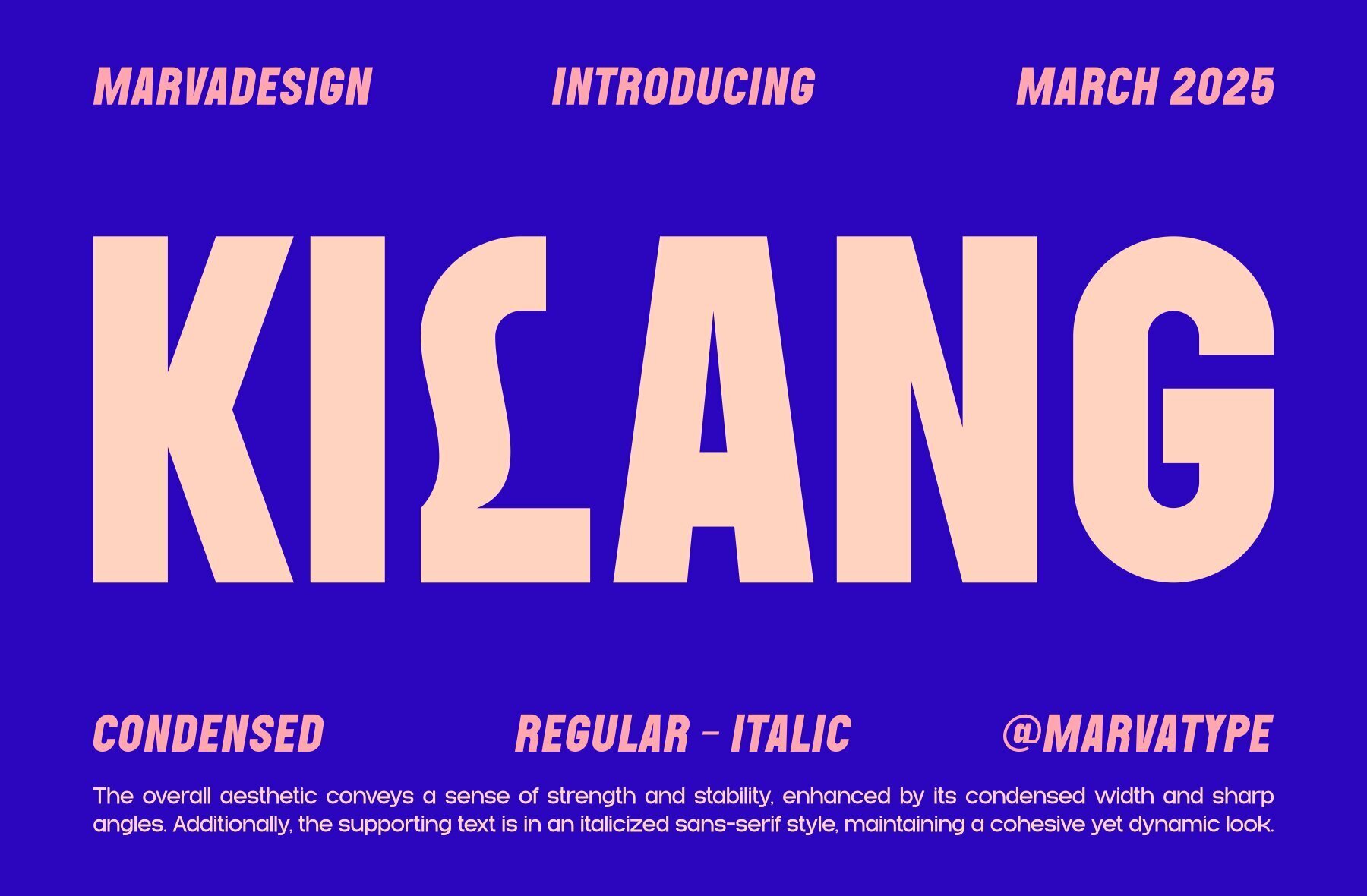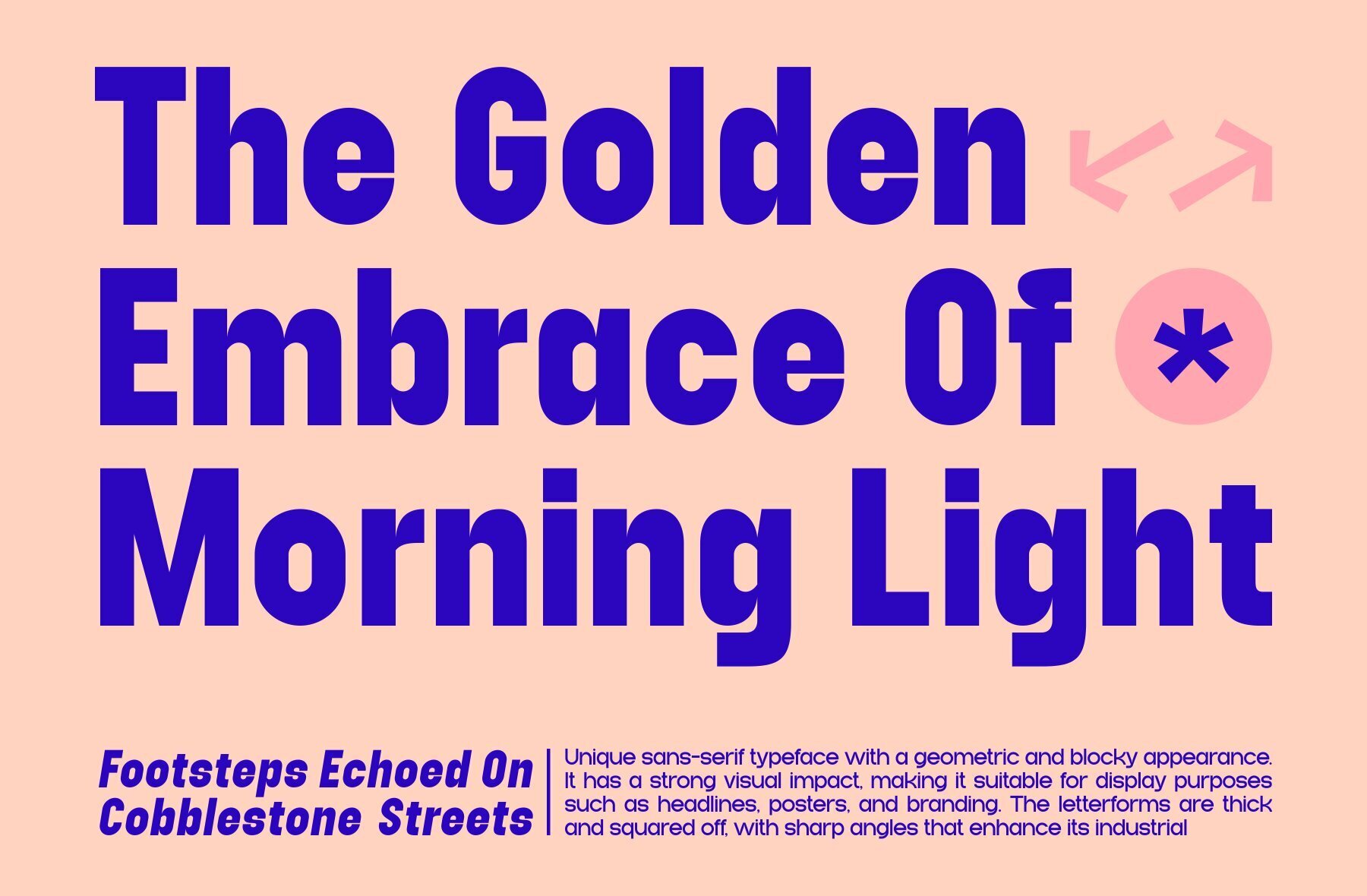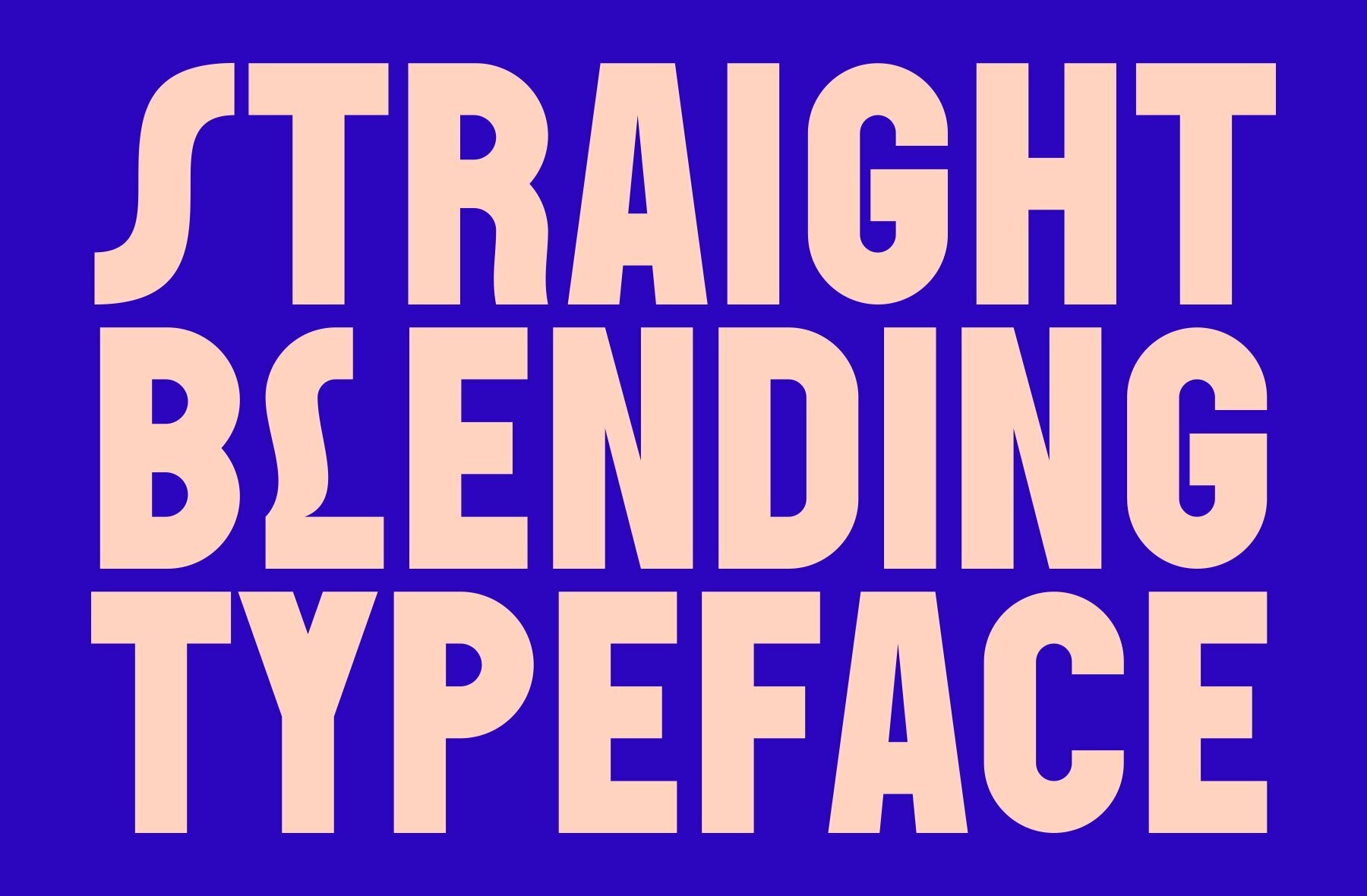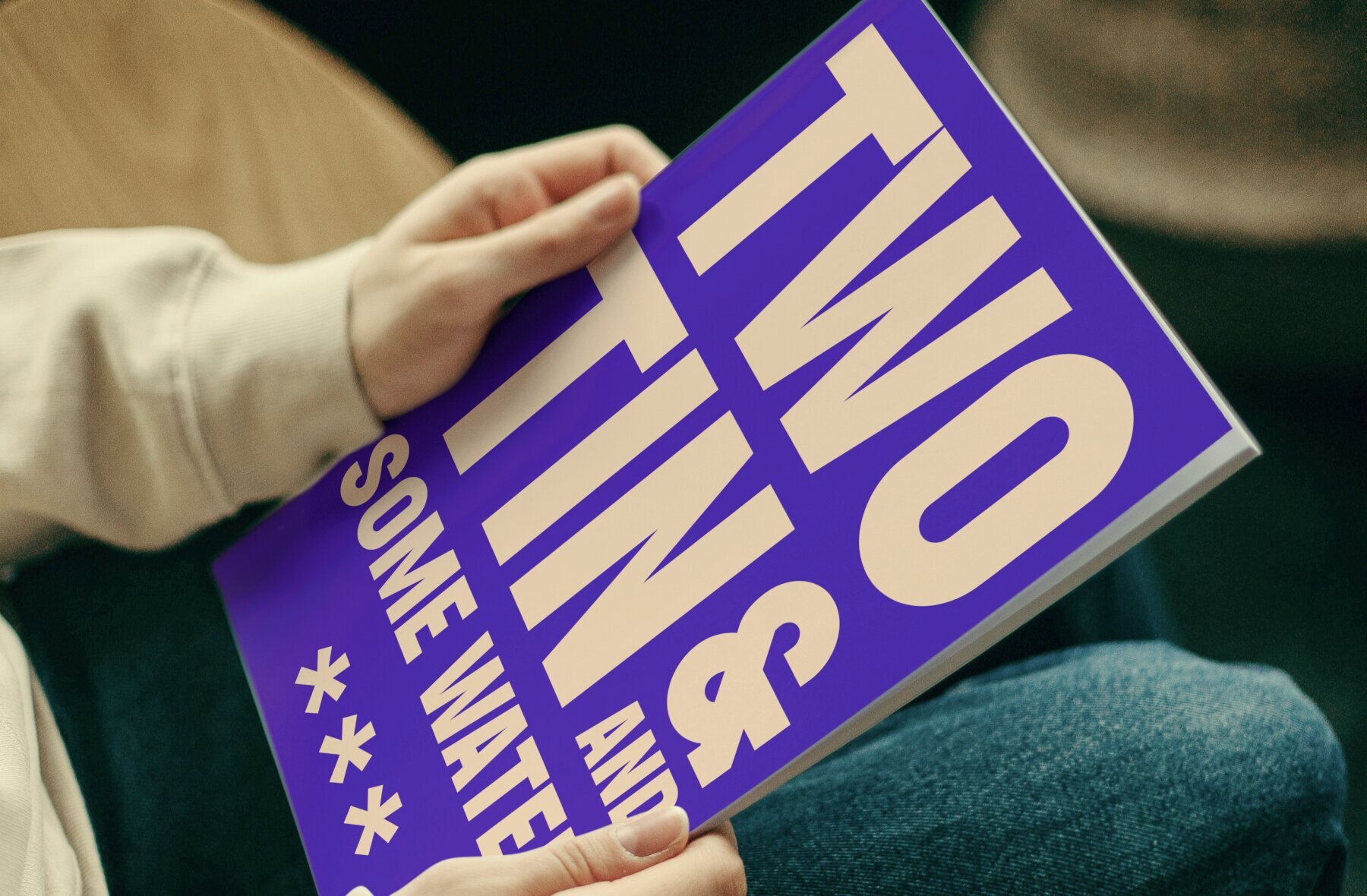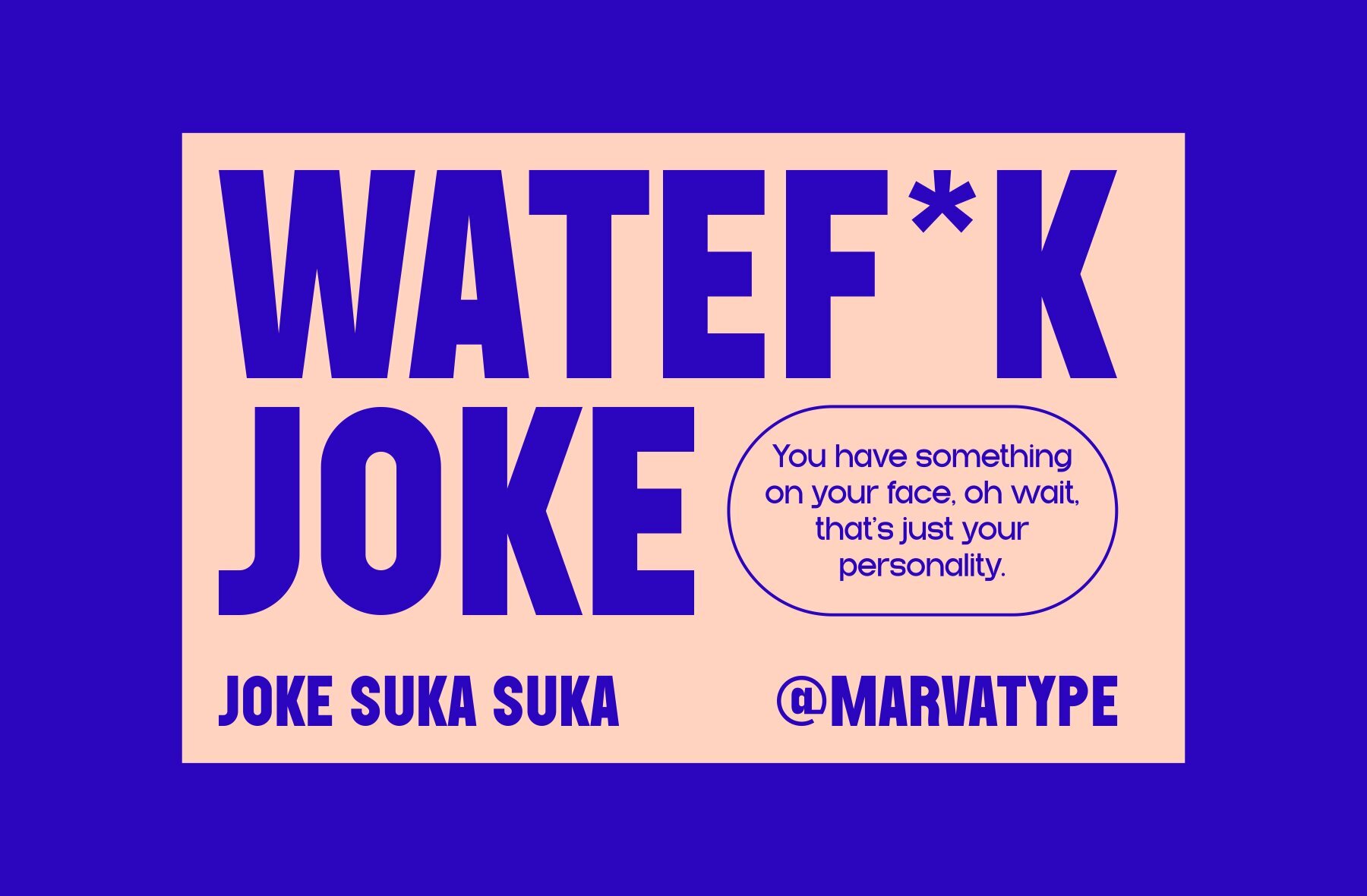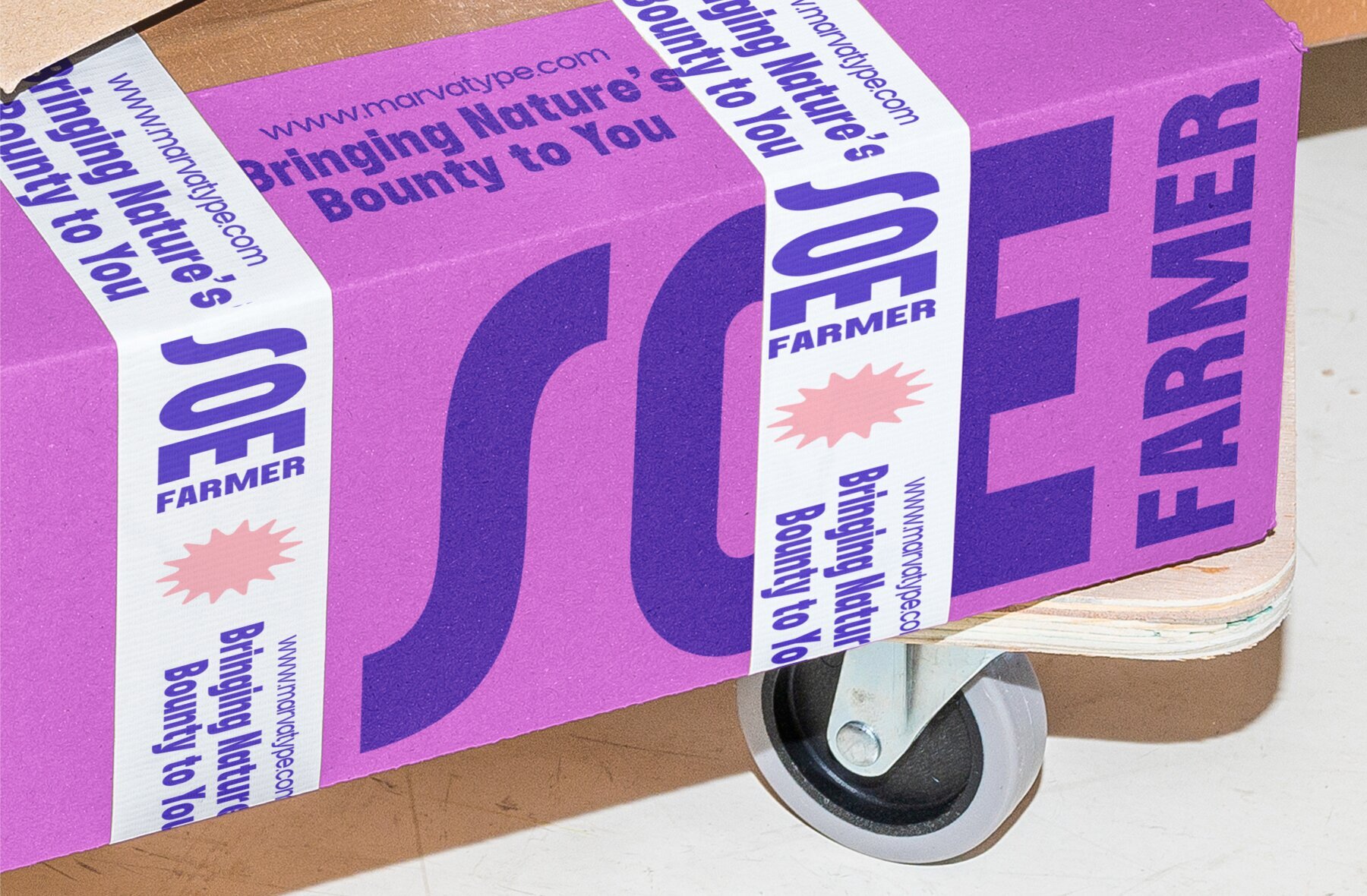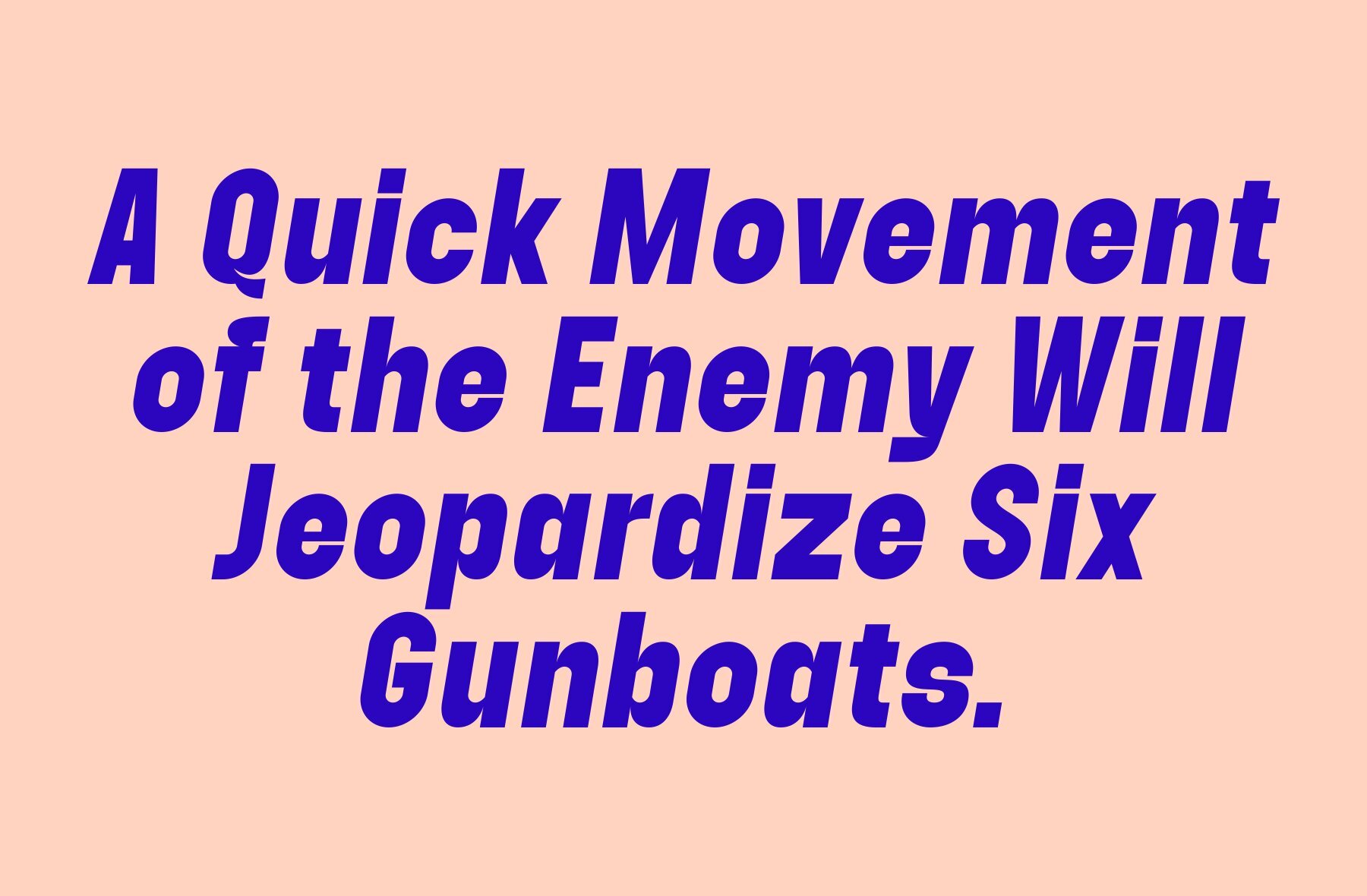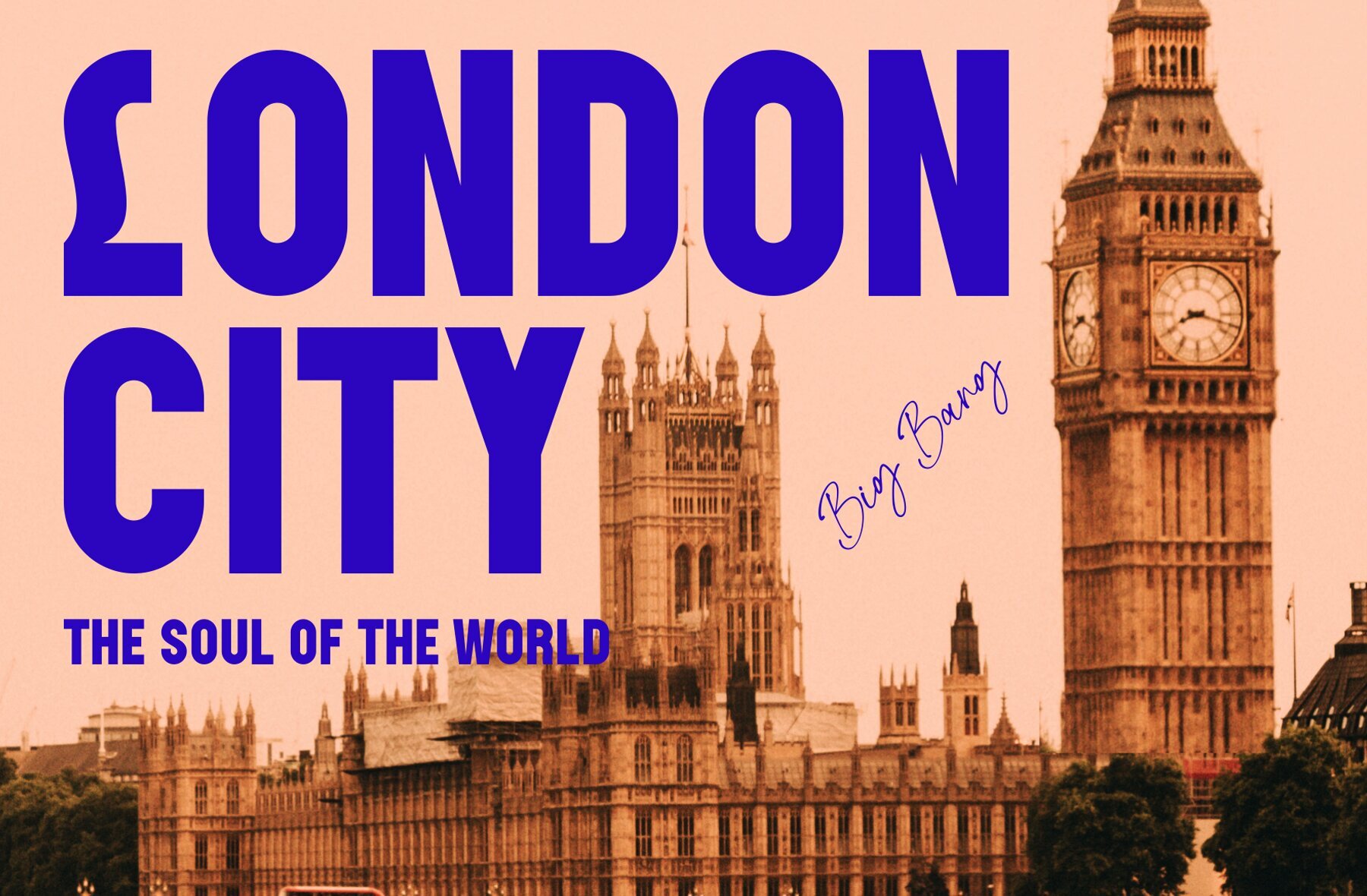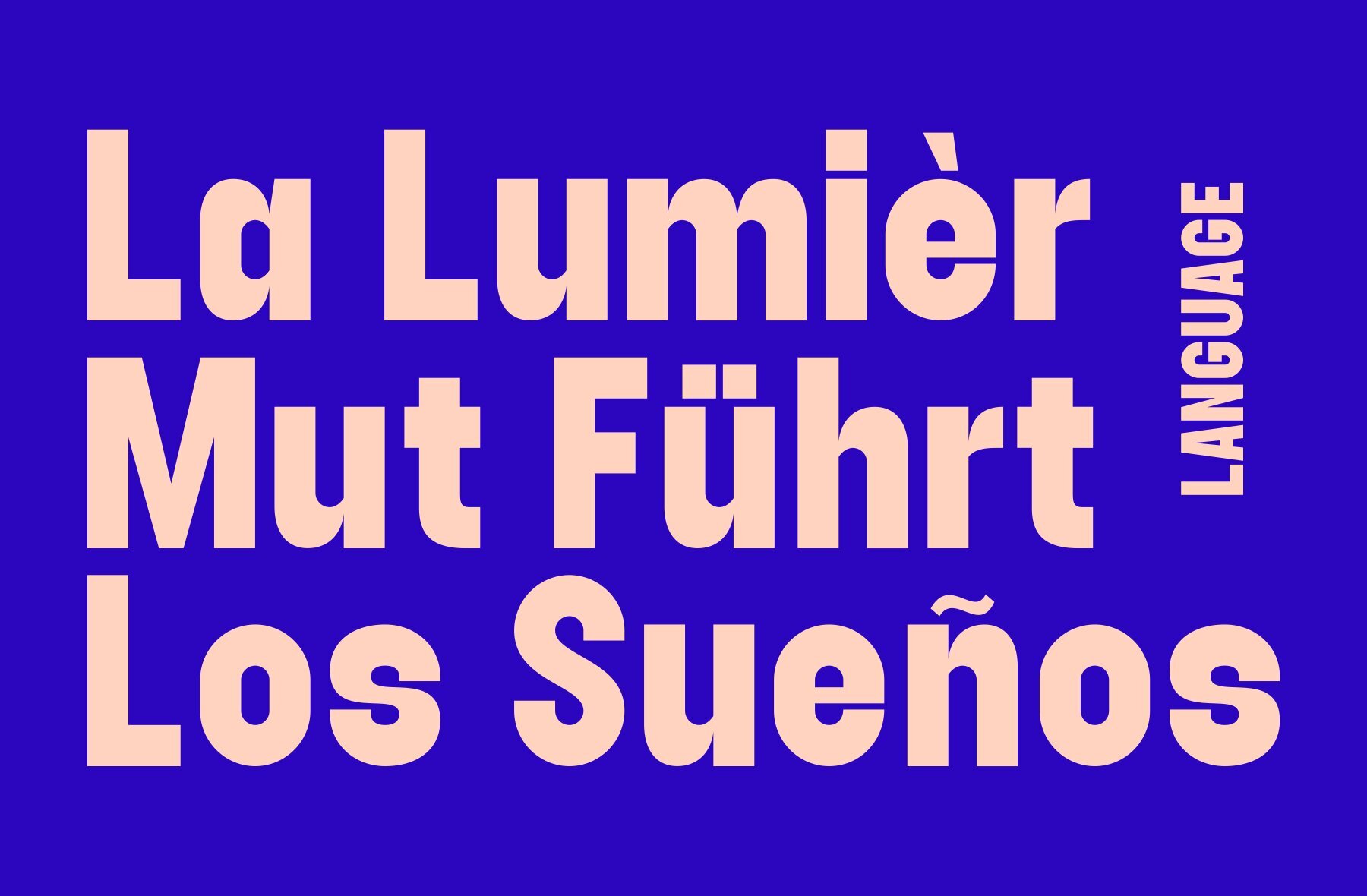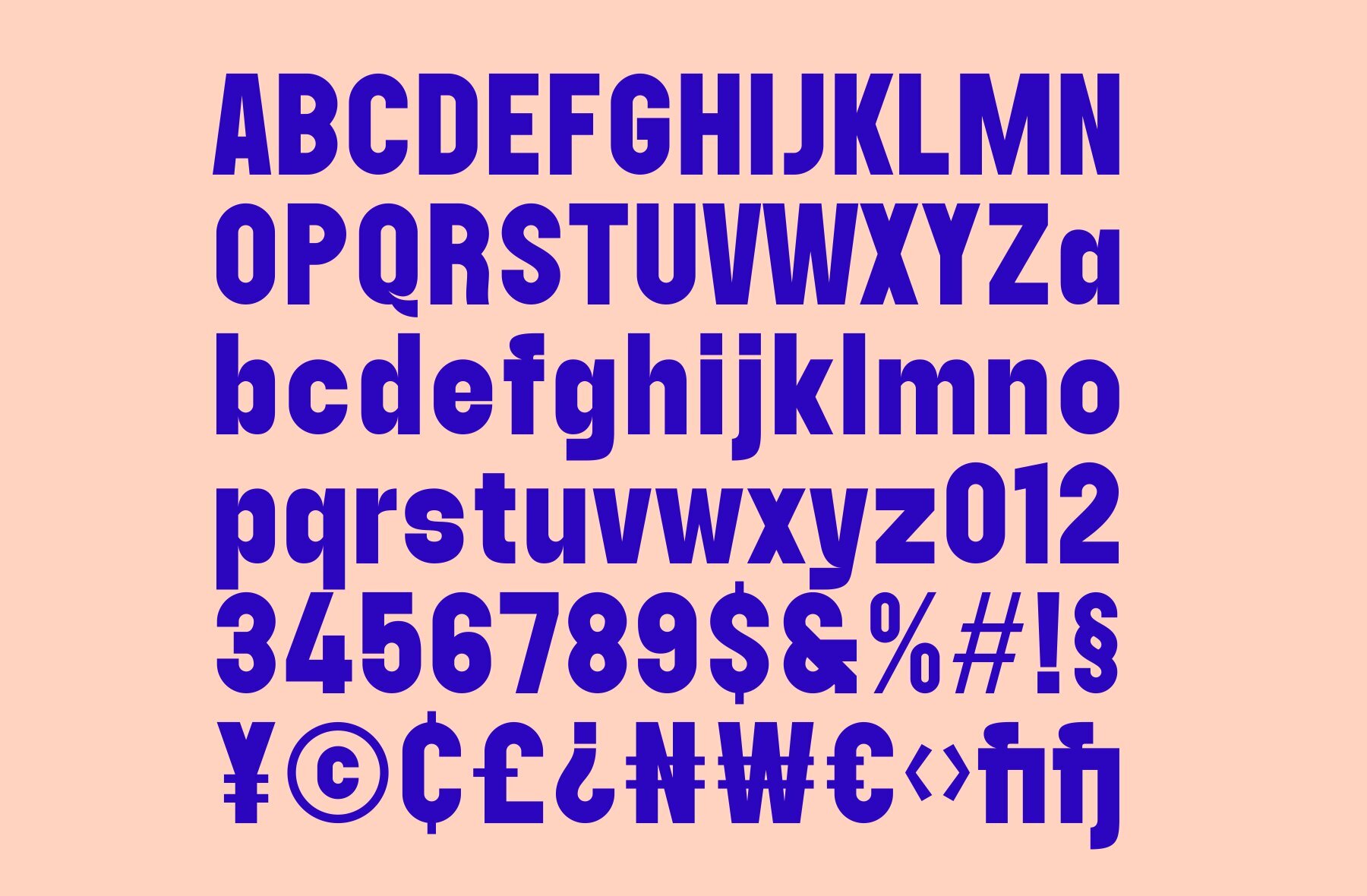
Kilang Font
Kilang is a bold, solid sans-serif typeface featuring a geometric, blocky structure that conveys a strong and stable presence. Its sharp angles and square letterforms enhance its visual impact, making it perfect for display uses such as headlines, posters, and branding. The solid width further intensifies its striking appearance, ensuring that your message stands out.
Available in both regular and italic styles, Kilang offers versatility while maintaining a cohesive look. The italic version adds a dynamic element, seamlessly blending into the overall design. With a modern, industrial feel, Kilang is ideal for those seeking a powerful and contemporary typeface to complement their creative projects.